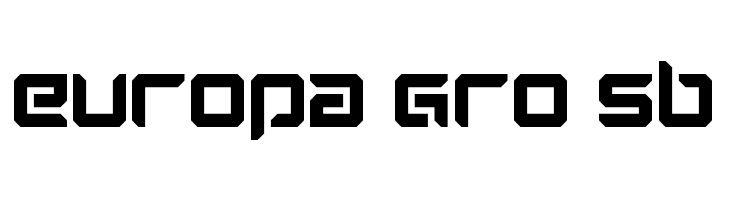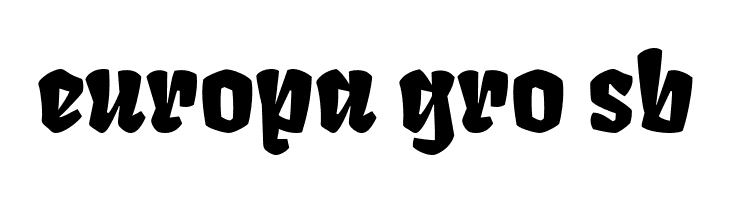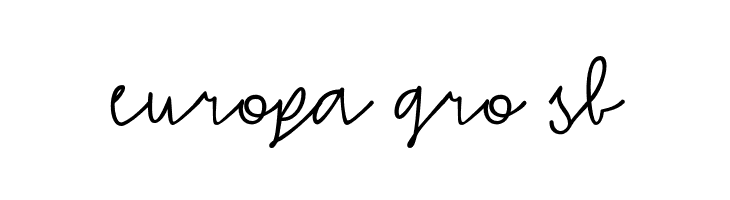
A decorative, illustrated font featuring Futurama characters and scenes.
A bold, distressed font with a grunge, urban aesthetic.
A bold, futuristic font with geometric, angular shapes.
A bold, playful handwritten font with thick strokes and a casual style.
A bold, italic font with dynamic and energetic strokes.
A bold, playful handwritten font with thick, rounded strokes.
A bold, italic font with dynamic and energetic strokes.
A bold, decorative font with blackletter influences and a modern twist.